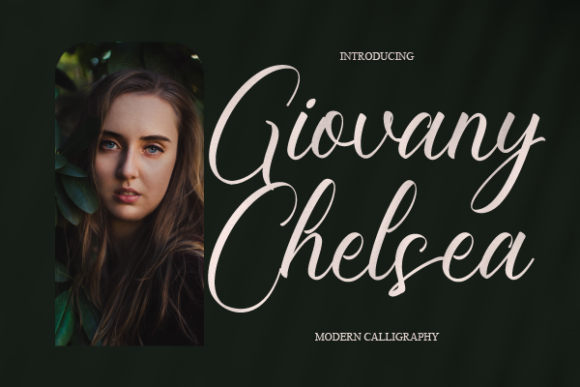
The Perfect Touch of Whimsy: Introducing Giovany Chelsea Font
Have you ever stumbled upon a beautiful handwritten font that instantly sparks your creativity? That’s exactly what happens when you lay eyes on Giovany Chelsea Font. Its delicate, curvy lines evoke a sense of elegance and sophistication, making it perfect for adding a touch of whimsy to your designs.
Giovany Chelsea Font is a slim and delicate handwritten font designed to make your work stand out. Whether you’re creating product packaging, branding projects, or magazine covers, this font is sure to bring a sense of personality to your designs. For designers, Giovany Chelsea Font is a valuable asset, allowing you to add a touch of warmth and humanity to your work.
Giovany Chelsea Font Key Features
- Font Style: Script Font
- Unique Characteristics: Elegant, cursive design with a touch of sophistication; perfect for creating a luxurious and high-end feel in branding and design projects
Giovany Chelsea Font Review
I recently had the chance to work with the Giovany Chelsea Font, and I must say it’s a unique and elegant addition to any design project. Here’s what I think:
- The Giovany Chelsea Font has a beautiful, flowing script style that’s perfect for adding a touch of sophistication to any design.
- The font is highly legible, making it easy to read even at smaller font sizes.
- The Giovany Chelsea Font is highly versatile and can be used in a wide range of design projects, from wedding invitations to business cards.
- The Giovany Chelsea Font may not be the best choice for projects that require a bold, attention-grabbing font.
- The font may not be as easily customizable as some other fonts, which could be a limitation for designers who like to get creative.
Overall, I think the Giovany Chelsea Font is a solid choice for designers who want to add a touch of elegance and sophistication to their projects. While it may have some limitations, it’s a beautiful font that’s well worth considering.
Some popular use cases for Giovany Chelsea Font include:
– Creating elegant invitations and greeting cards.
– Designing luxurious logos and branding materials.
– Adding a touch of sophistication to digital presentations and reports.
Remember to experiment with different font sizes, colors, and combinations to get the most out of Giovany Chelsea Font.